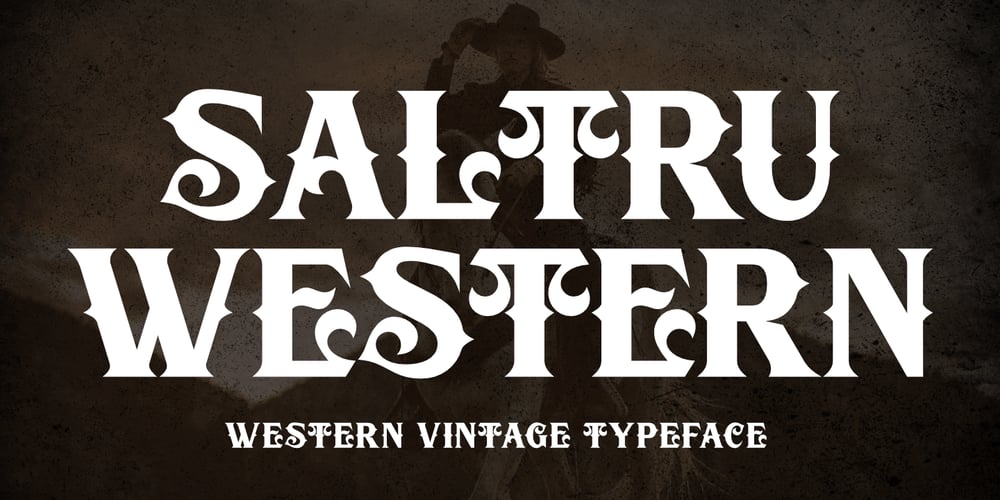
Saltru Western Font Family was designed by Saiful Anwar and published by Sealoung. Saltru Western contains 1 styles and family package options. Embrace the rugged spirit of the Wild West with the Saltru Western Font. This typeface is a tribute to the frontier, echoing the boldness and adventure of cowboy culture. Ideal for posters, logos, and branding, it infuses your designs with the essence of the American West. With its detailed craftsmanship and vintage charm, the Saltru Western Font adds an authentic Western aesthetic to any project, capturing the essence of the frontier with every letter.Saltru Western Font Features : Rugged Western Style: Captures the essence of the Wild West with its bold and adventurous design. Vintage Charm: Adds a touch of nostalgia and authenticity to your projects. Versatile Usage: Perfect for posters, logos, branding, and more, offering flexibility in design applications. Detailed Craftsmanship: Each letter is carefully crafted to reflect the rugged and daring spirit of the frontier. Multilingual Support: Includes characters for various languages, allowing you to create content in different linguistic contexts. Wide Character Set: Contains Uppercase letters, numbers, and punctuation characters, ensuring compatibility with different writing systems and typographical needs.– Uppercase Thank you!